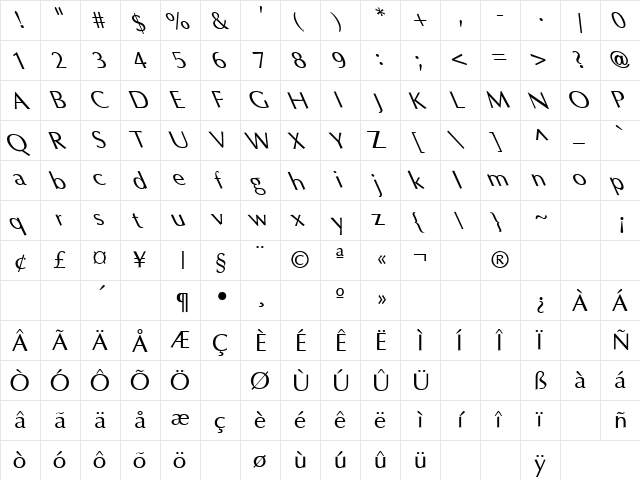
Friends 29 Regular Font Preview
Friends 29 Regular
Design Context for Friends 29 Typeface
Friends 29 is a composed and adaptable typeface that performs quietly and consistently across a wide range of design contexts.